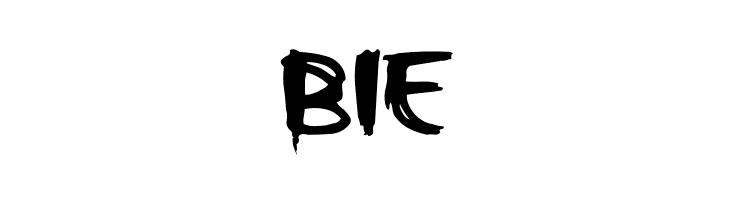
A bold, hollow font with a three-dimensional, futuristic style.
A graceful, cursive script font with an elegant, handwritten style.
A bold, geometric font with a modern and futuristic style.
A sleek, modern, light italic font with medium contrast and elegant slant.
A bold, scratchy, hand-drawn font with a playful texture.
A fluid, cursive font with a natural handwriting style.
An elegant, flowing script font with interconnected cursive letters.
A decorative font with swirling, fluid lines creating an abstract, energetic appearance.
A traditional blackletter font with sharp, angular lines and intricate details.
A dynamic, expressive handwritten font with fluid cursive letterforms.
An elegant, flowing script font with intricate loops and swirls.
A bold, modern font with tall, narrow letters and a clean design.
A fluid, elegant handwritten font with thin, delicate strokes.
A bold, modern font with a unique gradient effect and slight serif elements.
A whimsical and playful script font with flowing, interconnected letters.
An elegant script font with flowing, interconnected letters and sophisticated flourishes.
A fluid and elegant handwritten script font with a modern flair.
Bold, italicized outline font with a geometric and modern style.
An elegant, flowing script font with graceful curves and a sophisticated slant.
A modern, high-contrast font with geometric influences and elegant strokes.
A modern, rounded, extra light italic font with a friendly and elegant style.
A bold, italicized font with smooth curves and a modern look.
A flowing, cursive script font with bold strokes and medium contrast.
A bold, left-leaning font with a modern, dynamic style.
A bold, wide, and italic font with a dynamic and impactful style.
A dynamic and fluid script font with elegant, flowing letterforms.
A bold, italicized font with sharp angles and a modern, geometric style.
A dramatic, edgy font with sharp, jagged edges and a distressed look.
A dynamic, expressive handwritten font with fluid, irregular strokes.
A bold, flame-inspired font with dynamic, jagged edges.
A graceful and ornate script font with elegant swashes and high contrast.
A cursive, handwritten-style font with elegant loops and swashes.
A bold, artistic font with high contrast and unique curves.
A bold, italicized font with characters enclosed in hexagonal shapes, offering a modern and dynamic look.
A delicate, flowing script font with elegant, interconnected strokes.
设计师偏爱 Athens Hollow Regular, Perfect Garden, Charmed Pi, LIEUR Light Italic and perfectly scratchy Regular,因为其造型干净、适用范围广—— 从品牌识别到落地页、海报都能胜任。